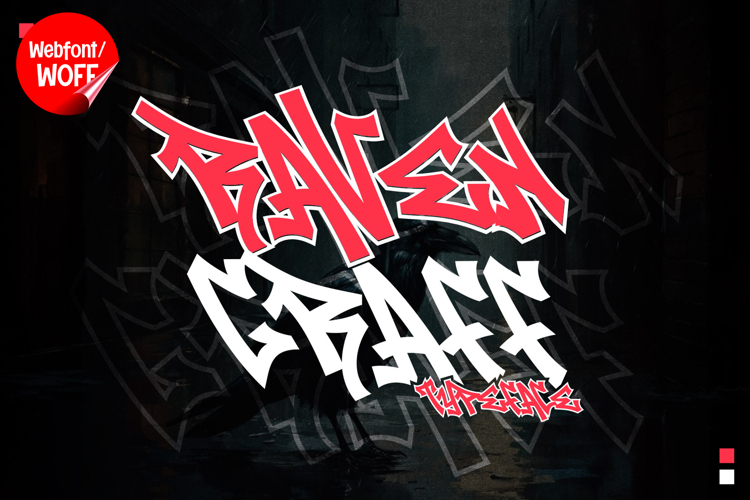
Ravengraff | Monoline Graffiti Webfont for Clean Urban Style
Ravengraff is a monoline graffiti webfont designed to deliver a clean yet expressive urban style for modern website design. Inspired by street tagging and minimalist graffiti techniques, this font features smooth single-line strokes that create a balanced and contemporary visual identity. It is an excellent choice for projects that require a graffiti-inspired look with a refined and versatile approach.
Ravengraff includes a complete set of uppercase characters designed with a monoline structure. The consistent stroke weight creates a smooth and cohesive appearance, while the graffiti influence adds personality and movement. These letterforms are ideal for headlines, banners, logo-style text, and featured content where a modern graffiti style is needed.
In addition to letters, the font includes numbers and punctuation, allowing flexible usage across various parts of a website. It works well for promotional text, navigation highlights, interface accents, and short content elements. Each character maintains a consistent monoline graffiti style, ensuring a cohesive and unified visual identity throughout the layout.
With multilingual support, Ravengraff includes a wide range of accented characters, making it suitable for international websites and global audiences. This allows content to be displayed clearly across different languages while preserving the clean graffiti aesthetic.
The monoline graffiti style of Ravengraff makes it especially suitable for urban-themed websites, streetwear brands, music platforms, creative portfolios, and lifestyle blogs. Its clean line design offers a modern interpretation of graffiti, making it adaptable for contemporary digital projects. The smooth strokes add a sense of motion and character without overwhelming the layout.
Despite its minimal and expressive design, Ravengraff is created with readability in mind. The spacing and proportions are carefully balanced to ensure clarity, particularly in display sizes and short text applications. This makes it effective for both bold visual elements and supporting interface content.
Ravengraff is a webfont that combines graffiti inspiration with clean monoline precision and modern digital performance. Its smooth lines, consistent structure, and urban character create a distinctive typographic presence that enhances website design. For projects that require a stylish graffiti look with clarity and flexibility, Ravengraff offers a balanced and impactful solution.